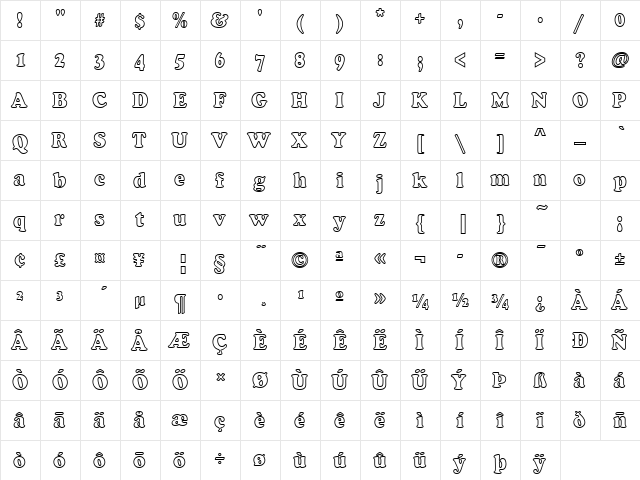
CooperBlaOutDCon Regular
Design Context for CooperBlaOutDCon Typeface
CooperBlaOutDCon is a composed and adaptable typeface that performs quietly and consistently across a wide range of design contexts.